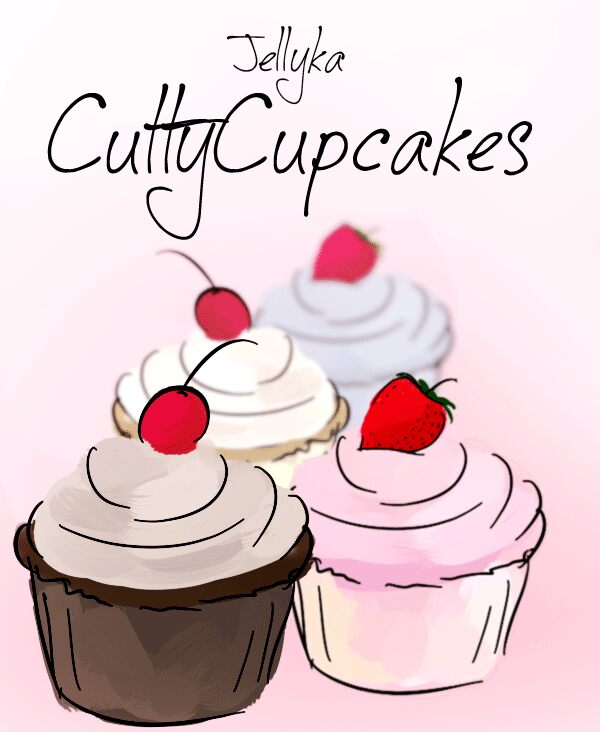
Jellyka CuttyCupcakes
Jellyka CuttyCupcakes by Jellyka Nerevan is a free handwritten calligraphy font with fine, fluid strokes and an easy signature quality. Tall loops and sweeping descenders give the letters lively movement.
A boutique bakery or small confectionery brand could use it to make labels and packaging feel personally penned. Its graceful line also suits wedding invitations and fashion editorials, especially when a warm, informal note is wanted. Across these settings, the drawn-out curves turn names and brief messages into a recognizable handwritten mark.